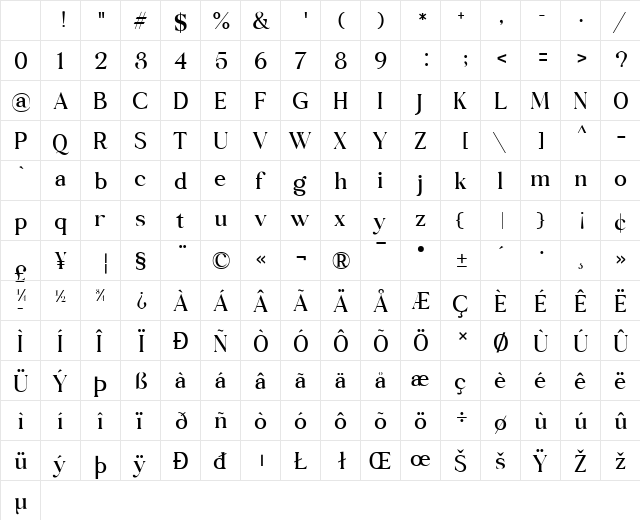
Complete Belgiano Serif Regular glyph index. Displaying only characters natively supported by Belgiano Serif Regular font.
Belgiano Serif carries the refined structure of traditional serif typography, with bracketed terminals and considered proportions that communicate credibility and craft.
Pro Tip: Use Belgiano Serif for editorial body copy and considered headline work. Pair with a neutral sans for UI elements or captions to create a classic hierarchy.